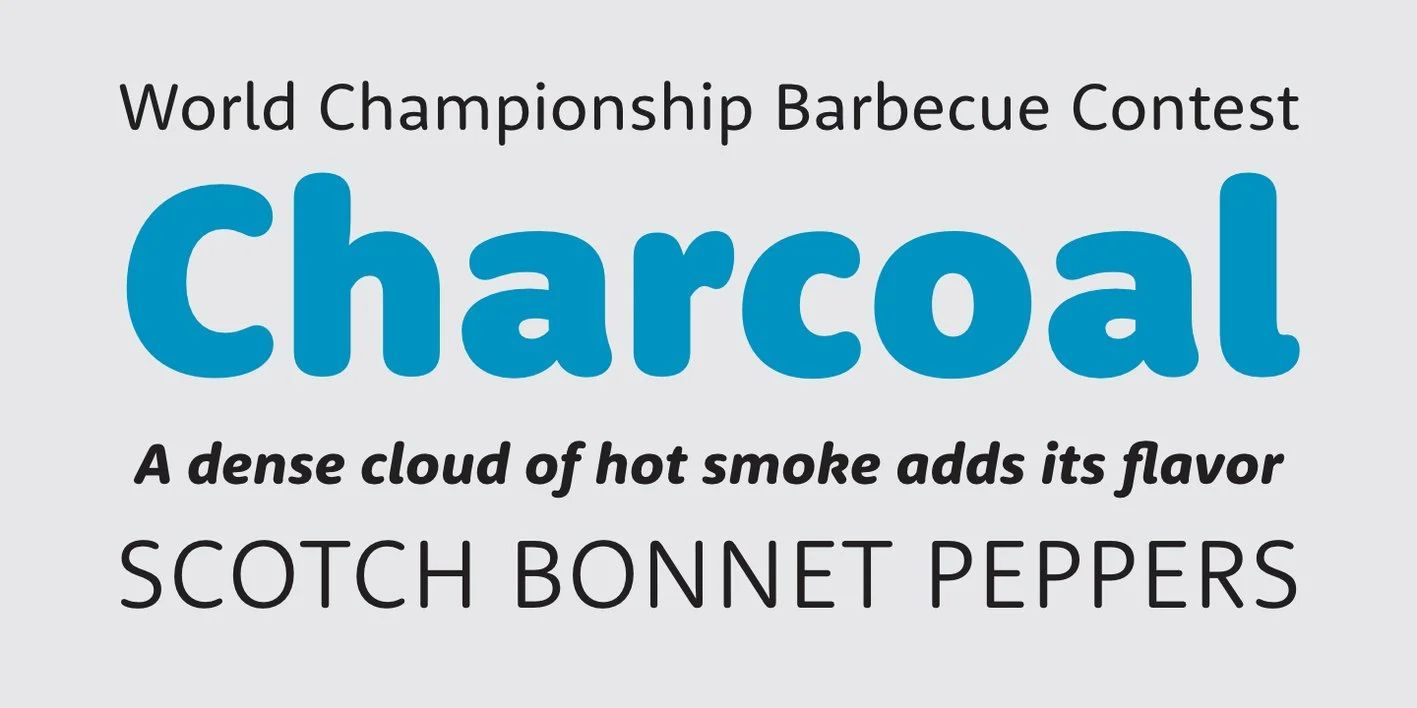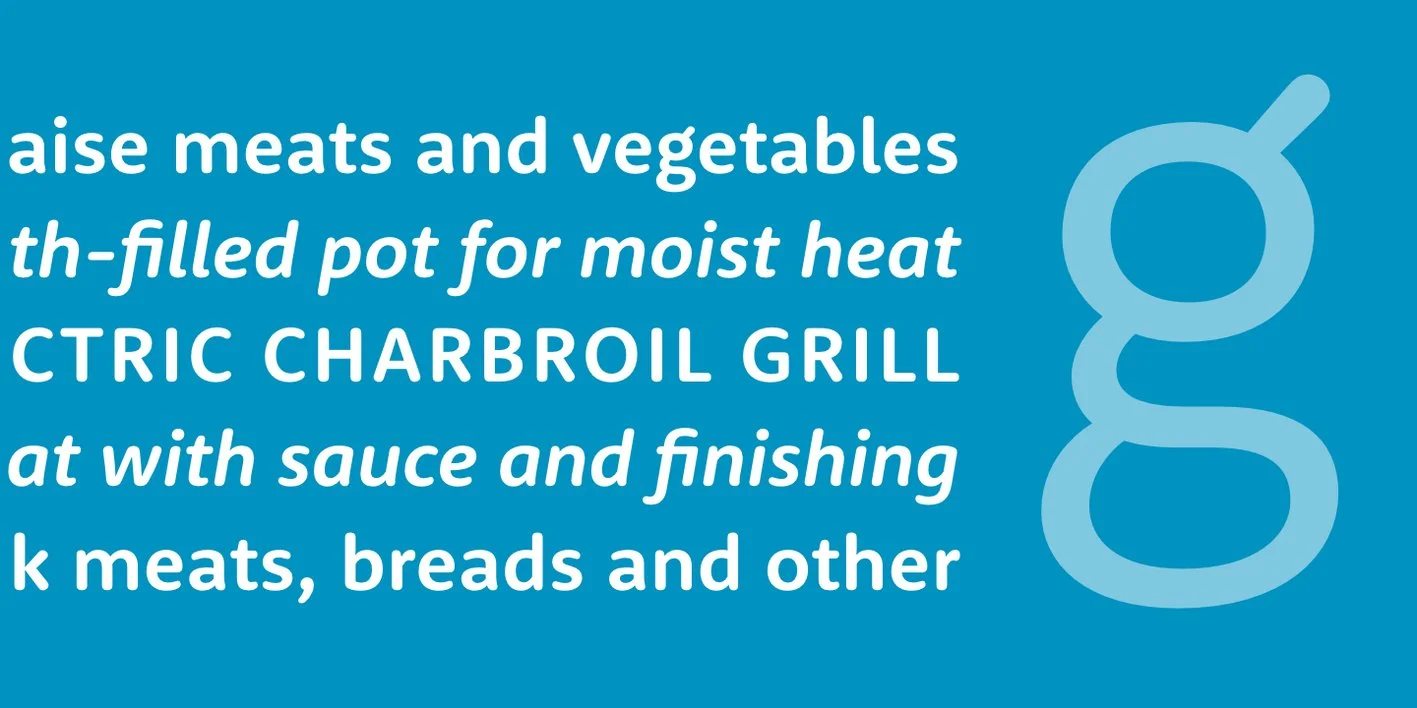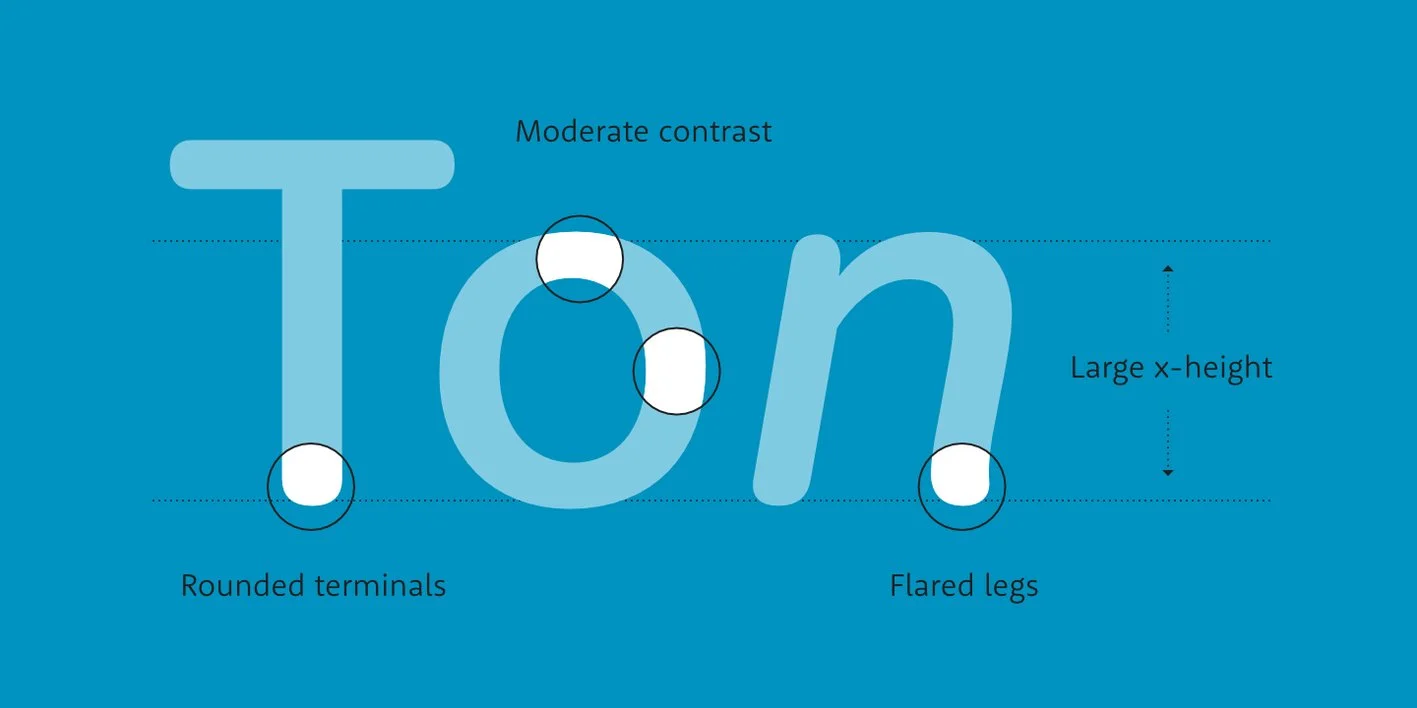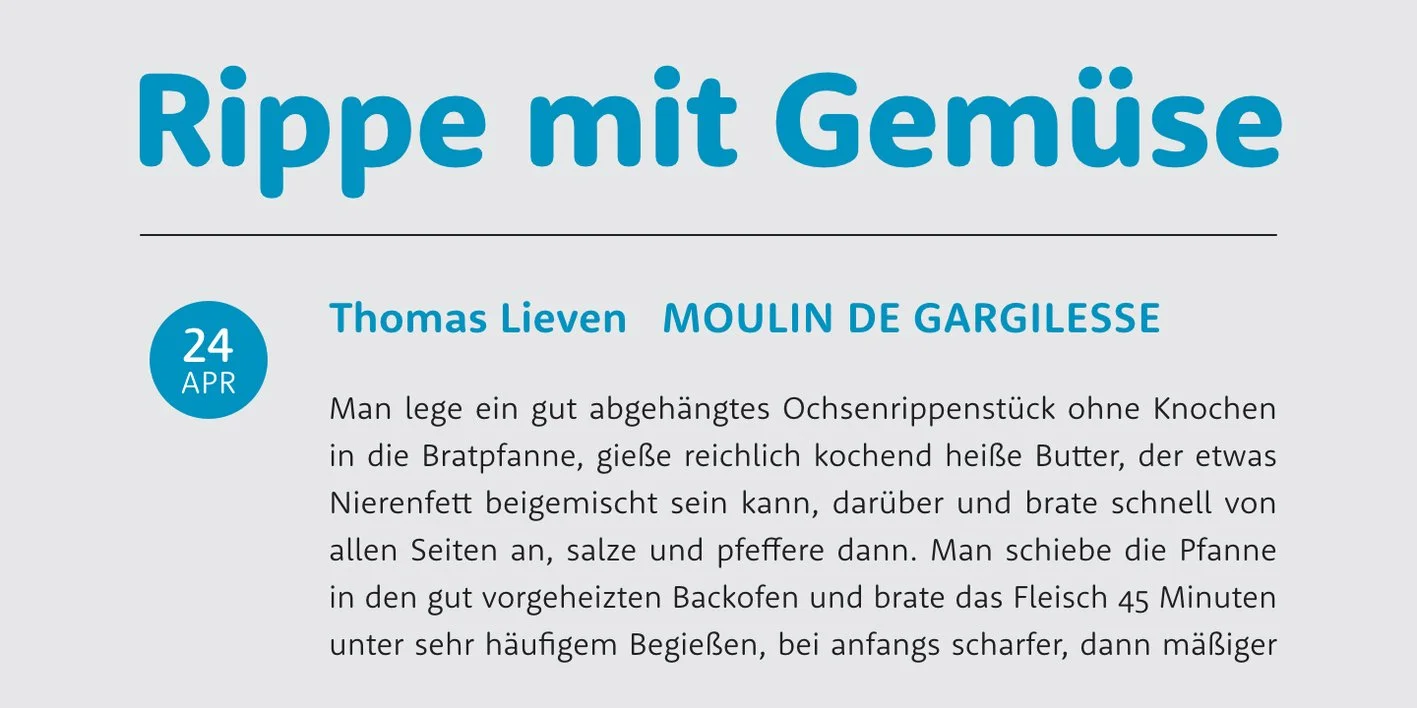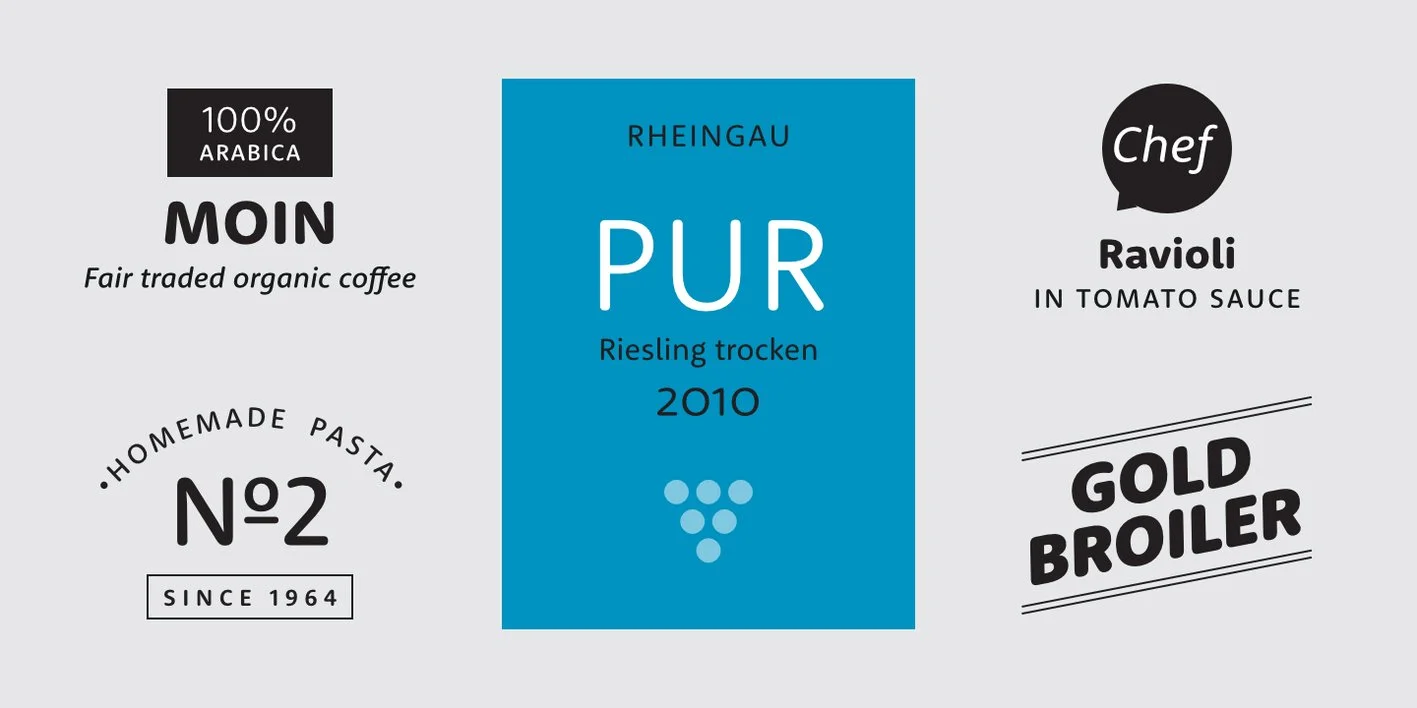
Rooney Sans Font
When a design brief calls for both consistent type colour across continuous text and immediate visual impact, type choices matter — Rooney Sans answers that brief. The typeface brings a clean, humanist sensibility to a broad range of creative disciplines, with refined proportions and careful stroke modulation that holds up whether the work is print-first or screen-first.
In practice, Rooney Sans proves particularly effective for product packaging for tech brands, presentation decks, signage systems, annual reports, product labels. Designers reaching for it find that the type decisions feel resolved rather than laboured — a useful quality when client timelines are tight.
The range of applications extends to social media graphics, digital signage, editorial layouts, startup identities. That breadth is deliberate: the proportions and spacing were stress-tested across a wide range of mock briefs before the typeface was finalised.
Unlike geometric sans-serifs built on circles and squares, this design takes its cues from the proportions of classical Roman letterforms, producing a warmth that sustains reader comfort over long passages of text without sacrificing the clean lines expected in modern digital interfaces.
UX designers establishing typographic systems for digital products find Rooney Sans a reliable choice for projects that demand both personality and restraint. The design avoids the self-conscious quirkiness that dates quickly, settling instead for considered distinctiveness that holds up over time.